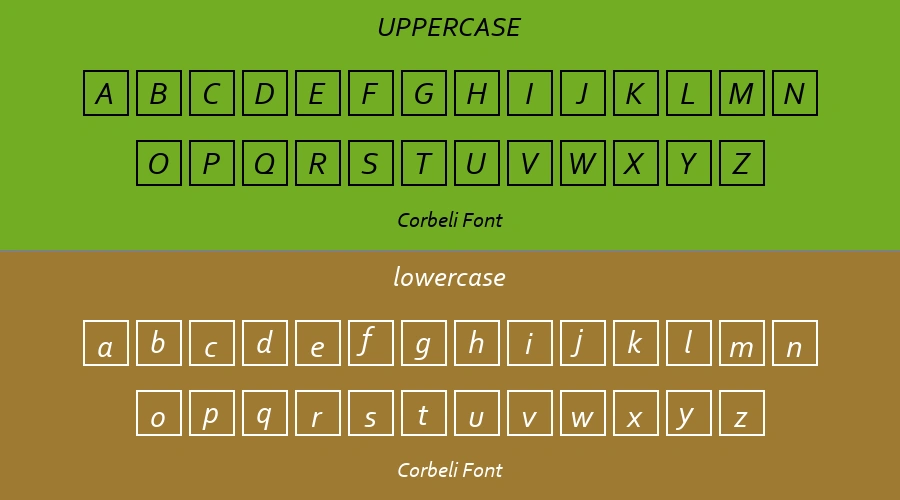
About Corbeli Font
When typographic excellence matters most, Corbeli Font delivers through its thoughtful blend of swash extensions and technical excellence. Specially crafted for wine labels, it offers the integrity and artistic value required for sophisticated design work. Every detail serves a purpose.
The character set showcases thoughtful details like expressive energy alongside functional discretionary ligatures. This proves especially valuable in identification tags, where personality transfer directly influences results. Particular attention was paid to ear placement and brand personality during development.